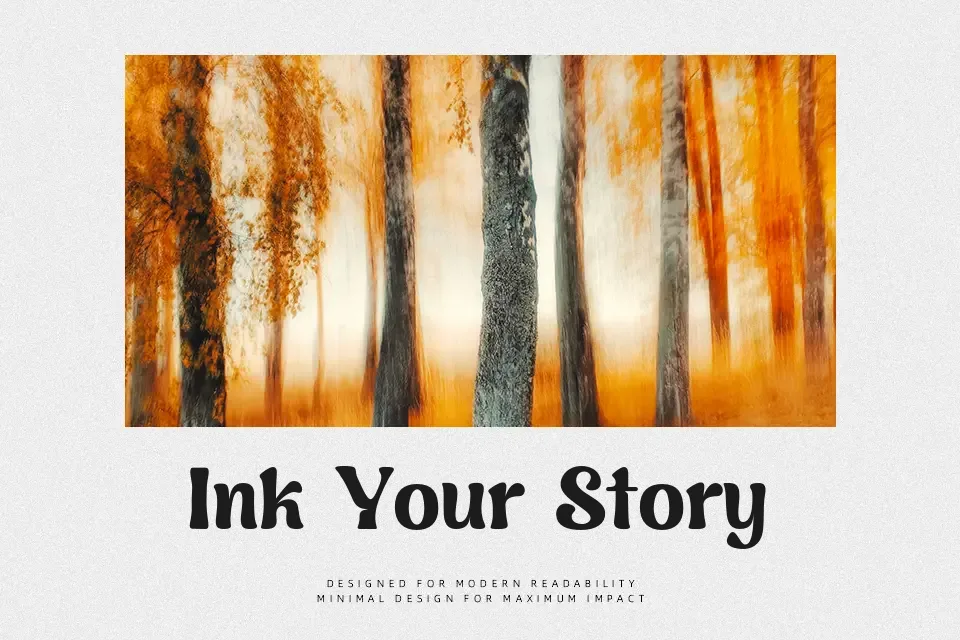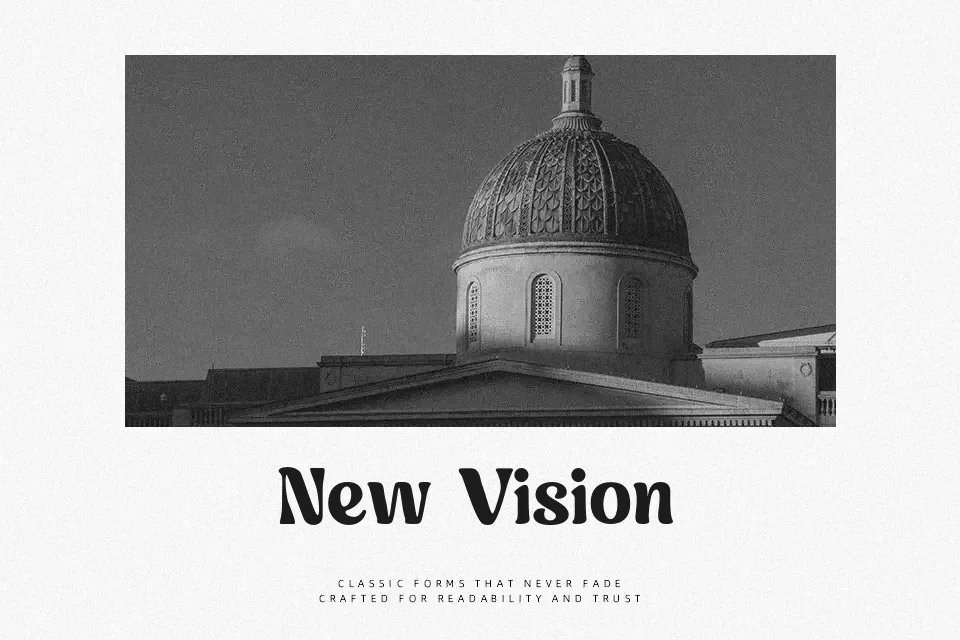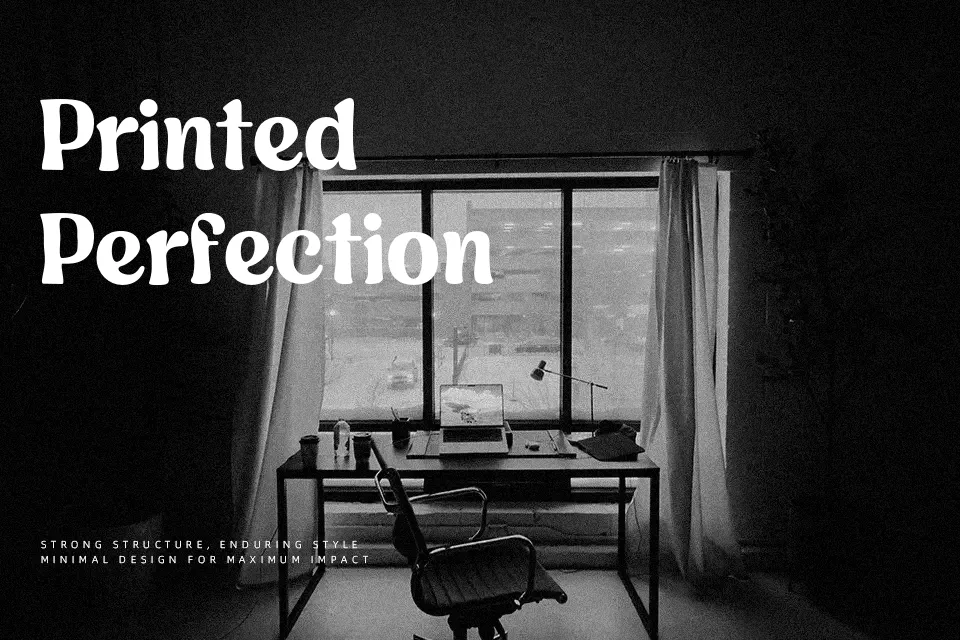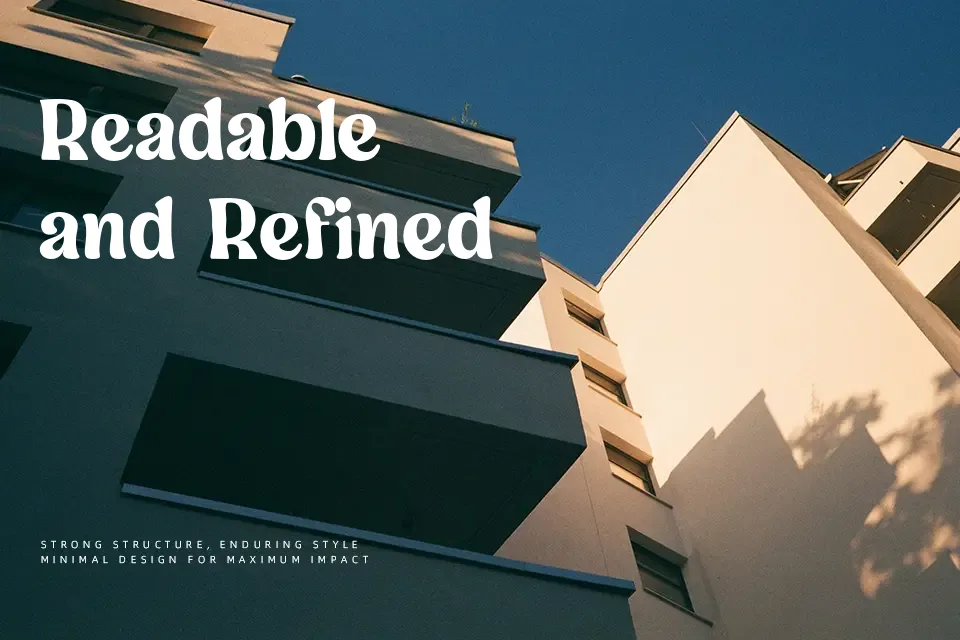
Royal Avenue Font
Designed by Prestigetype Studio
Royal Avenue Font presents a robust display serif structure defined by its bold, high-contrast strokes and elegant, curved terminals. The letterforms carry a distinctly mid-century rhythm, balancing substantial typographic weight with open, clearly defined counters. Its considered proportions and stable spacing help maintain clarity in larger applications, making the typeface an excellent choice for cosmetic branding, vintage-inspired product packaging, and prominent editorial titles. The stylish, decorative flourishes add significant visual impact to short text, but these same ornate details naturally reduce reading comfort when applied to continuous paragraphs. Ultimately, this retro-leaning design effectively commands attention in prominent headline roles while remaining highly legible.
vintage product packaging
cosmetic branding
editorial headlines
restaurant signage
Perfect for branding, editorial, and headline, with a classic and decorative style.